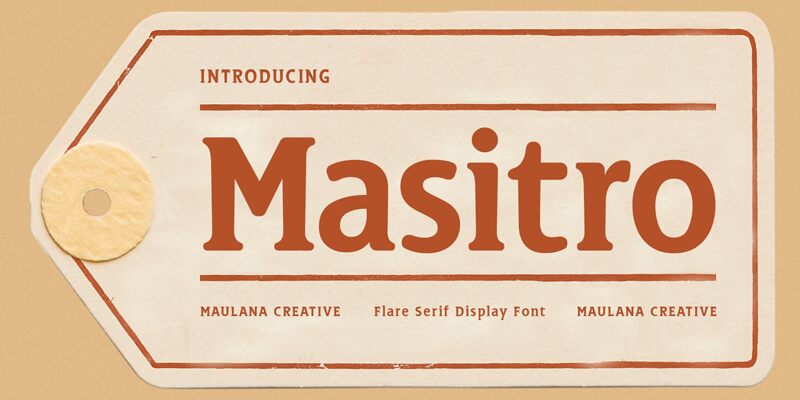
Masitro Free Regular
Masitro, a creation by Maulana Creative, carries a timeless elegance with its bold serif letterforms. Its strong presence is marked by robust lines and pronounced serifs that command attention. The font's generous proportions and purposeful structure evoke a sense of confidence, while its classic serif details add a touch of sophistication.
Ideal for headlines and branding that require impact without sacrificing style, Masitro offers designers an authoritative voice that stands out in print media, sophisticated web design, and upscale marketing materials. This font's sturdiness makes it equally suited for impactful statements on posters or as the foundational typography for corporate identities seeking to project solidity and prestige.